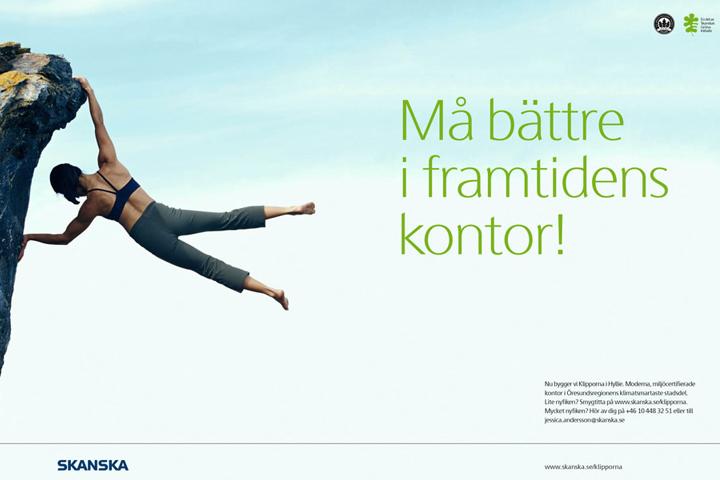
The design agency Brindfors Enterprise IG presented their new design concept for Skanska to us, we shared our input, and in a co-joint effort we sketched our way through to the final typeface design. Initially we designed the weights Regular and Bold (with extended Latin language support), later on we added a Light weight to the family (commissioned by Skanska directly), and even later we also added a Black weight (commissioned by the design agency CJH).
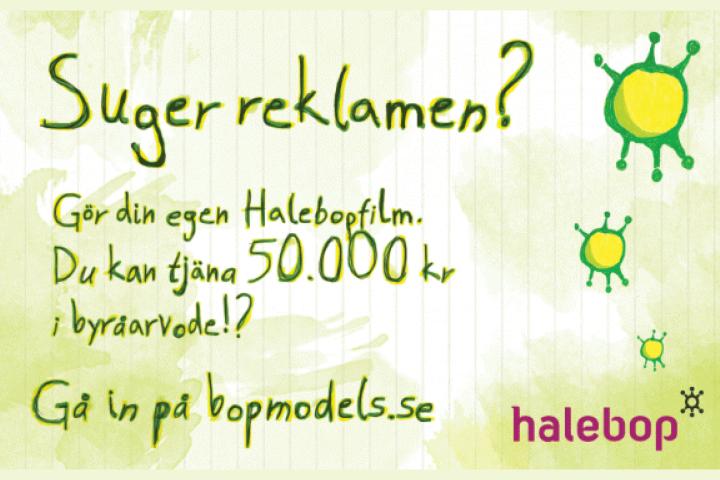
The design agency Honesty provided us with hand-written and vectorized Illustrator-material, from wich we selected three variants of each glyph, which would then be used to overlap each others in the three solid colours yellow, green and grey. The intent was to mediate an impression of a sketchy and scribbly hand-written manner to match the message and target group (urban young people). We also completed the typeface with a bold weight as well.
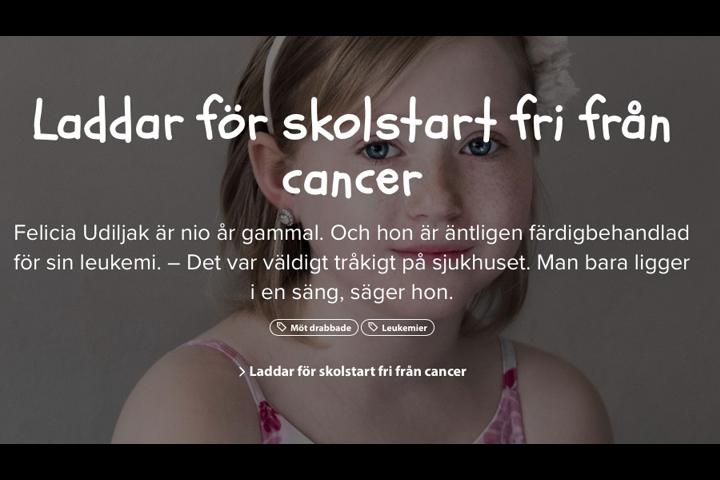
Barncancerfonden (The Children’s Cancer Foundation) were using signs that were only available as hand-written originals, and now needed a similar-looking typeface. The design agency Intellecta found a free font which was very close in design, which they then commissioned us to modify and make bolder to further match the hand-written material, with the final result making the difference negligible.
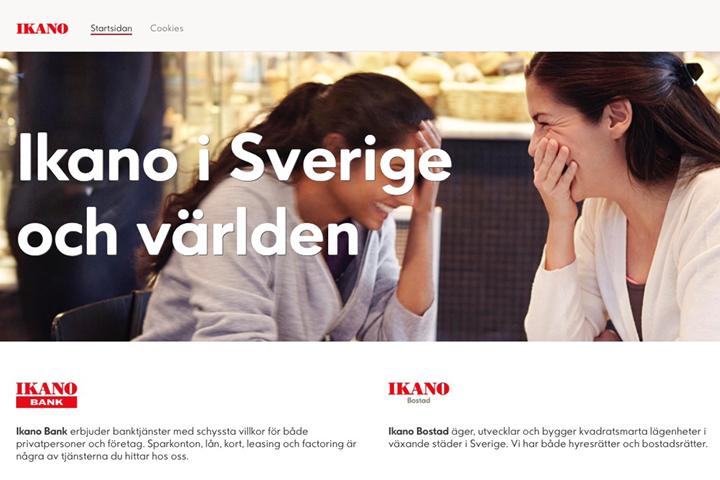
The design agency JVD supplied us with sketches and instructions for a new custom corporate typeface for the financial company Ikano (a subsidiary of IKEA), we then designed and produced the three new weights Light, Regular and Bold (plus an italic Light weight) with subtly rounded corners for a slightly softer expression. We supplied the fonts both for print and for the web.
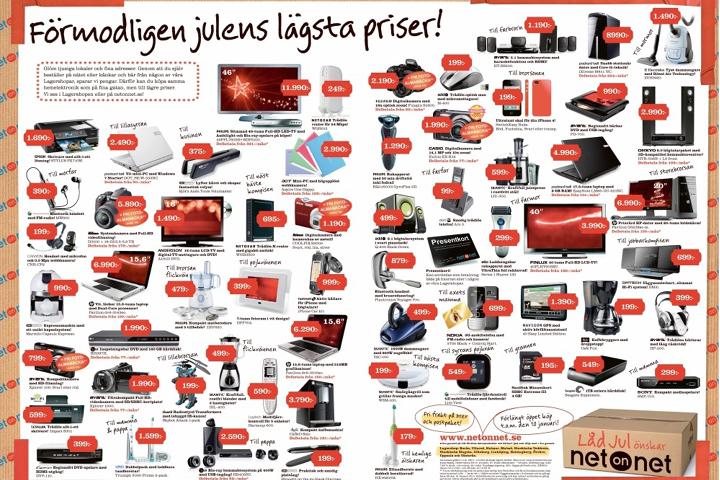
The design agency Garbergs commissioned us to produce a new campaign typeface for the electronic whole-sale company NetOnNet, based upon inhouse sketches of a hand-drawn script alphabet. We then scanned, vectorized, fine-tuned and produced the new master font.
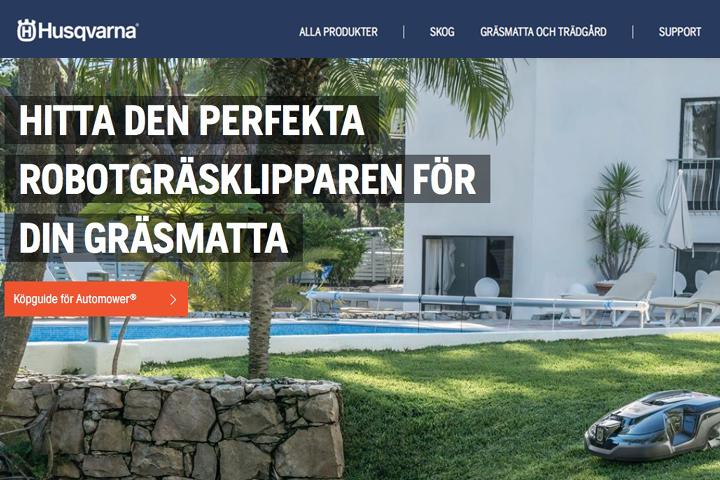
The design agency DDB commissioned us to design a new corporate identity typeface for Husqvarna. Together we worked through the requirements before we decided on the basic design principles for the new typeface. We then drew the typeface, sent sketches back and forth to DDB and Husqvarna for approval, and finally produced a complete family in three weights plus italics, with support for the Latin alphabet (for all European languages) as well as the Greek (modern) alphabet and the Cyrillic (Russian) alphabet (for all European languages plus some Asian languages), both for print and for the web. Indeed one of our most extensive commissions to date.
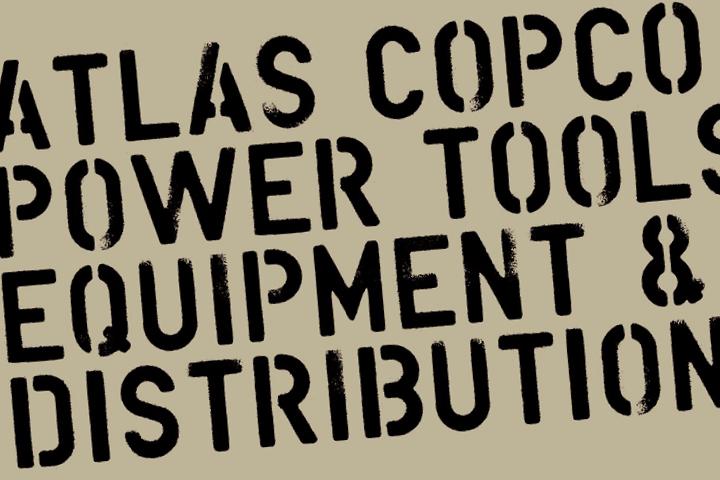
The design agency Welinder commissioned us to produce an all-caps font in a stencil manner, including alternative glyph variants for a more dynamic expression, for their client the multi-national tool and machinery company Atlas Copco. The basis material were sprayed letters which we then scanned, vectorized and created a new typeface from.
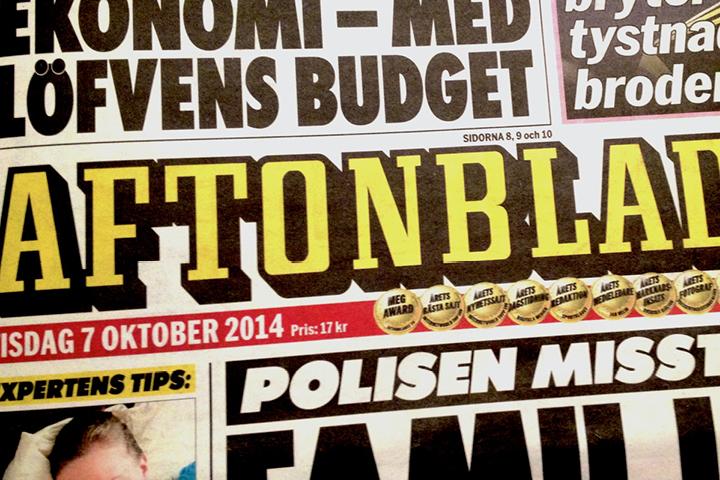
The newspaper head for Aftonbladet was only available to them as a logotype. We were commissioned to fine-tune the glyphs in the logotype, complete the alphabet with all missing all-caps glyphs, and produce a new typeface containing both separate outlines with drop-shadows and separate fillings. By combining a capital filling (without spacing) on a lower-case key with the corresponding capital outline/drop-shadow (with fit spacing) on an upper-case key, it is now easy to produce any subsidiary newspaper names (such as Sportbladet) set in bi-coloured text (just as the newspaper head logotype).
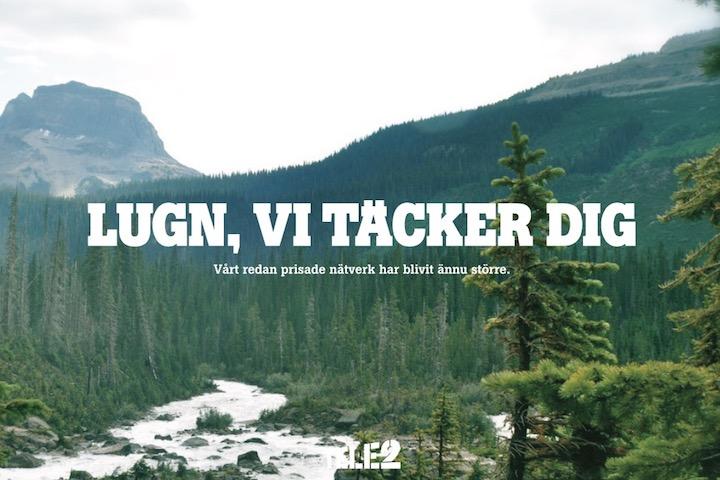
With Tele2’s current slab serif typeface as the underlying design concept, Tele2’s design agency Kurppa/Hosk commissioned us to design a brand new custom corporate typeface for Tele2, which resulted in the two weights Regular and Bold plus italics, one version with spacing optimized for headline and one version for body text. Later on we also added Cyrillic (Russian) language support for all four fonts, and also completed the family with an extra bold all-caps Heavy weight (intended for headline use only).
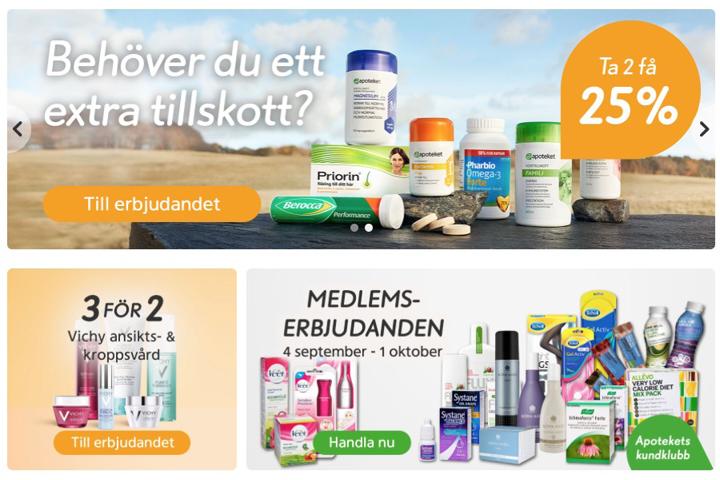
The design agency JVD sketched the basic design for a new ad typeface for the pharmacy chain Apoteket, we vectorized and fine-tuned all glyphs and produced two complimentary weights. For the same client we also produced their new corporate identity typeface, consisting of three weights plus italics, and for the design agency Intellecta we have also produced a new all-caps headline typeface for the same client (Apoteket Service).
We received a few glyphs in a bitmapped manner as design sketches, directly from the Swedish computer game company Mojang (which is behind the international success game Minecraft), and were then commissioned to finalize the glyphs and complete the alphabet. In total we produced four new fonts of different widths and weights in the same bitmapped manner (the purpose of this design concept was to reproduce the same “block feeling” which is used in the game’s computer graphics).
The design agency The Brand Union commissioned us to produce three new weights with four complimentary italics (of which one was back-slanted, hence four...), plus two condensed weights and one engraved weight, all ten fonts both for print and for the web (the latter also with extensive manual hinting). The basis was their client the licqor company Absolut’s former corporate typeface Futura, but with the instruction to achieve a more contemporary touch with influences from the humanist grotesque.